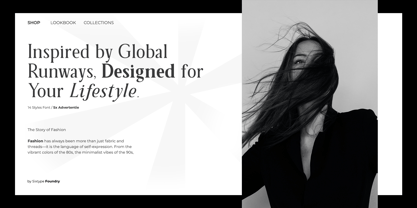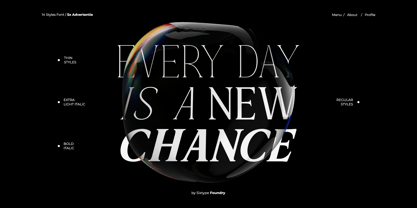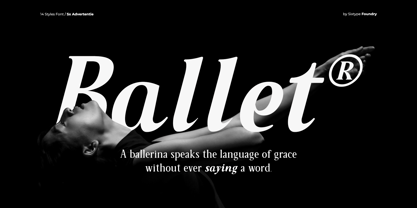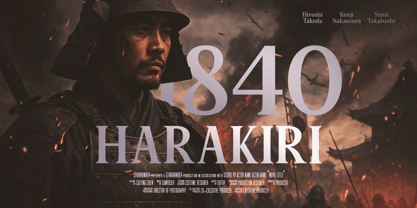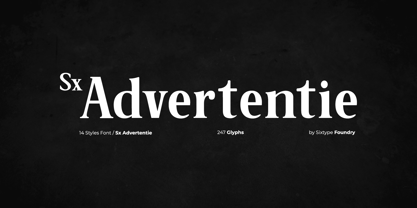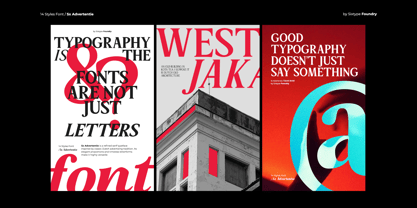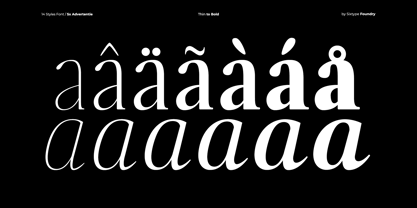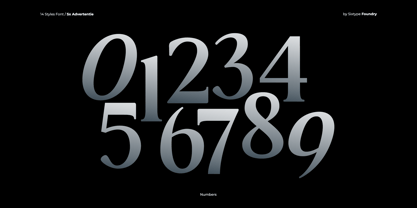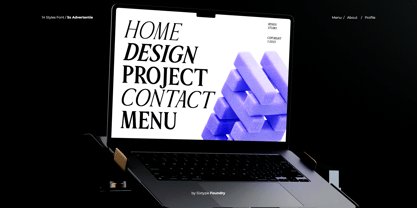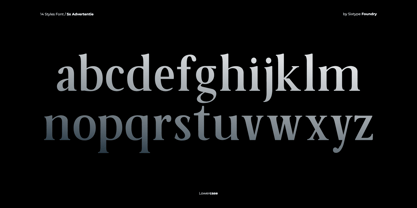
Sx Advertentie
The Sx Advertentie Font Family was designed by Ilham Aji Saputro and published by Sixtype Foundry. Sx Advertentie contains 14 styles and family package options. More about this family
Sx Advertentie is a striking editorial serif typeface that beautifully balances classic and contemporary design elements. Drawing inspiration from the rich tradition of Dutch advertising, this font exudes a bold yet elegant character, perfectly tailored for the digital landscape. Ideal for impactful headlines, Sx Advertentie ensures exceptional readability in body text, making it a versatile choice for various applications. Its stunning italics add a dynamic flair, enhancing the overall aesthetic of any project. With 14 styles ranging from Thin to Bold and an impressive set of 247 glyphs, this typeface supports a diverse array of languages, making it a standout option for global branding. Whether you're crafting a modern publication or a sophisticated web design, Sx Advertentie is the essential serif that merges retro charm with contemporary sophistication.